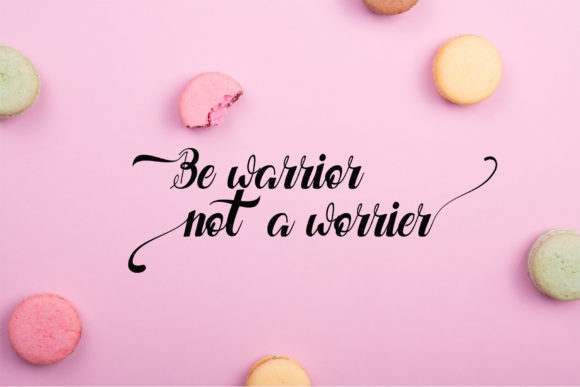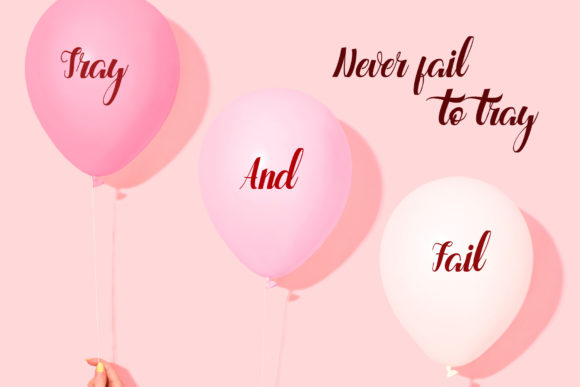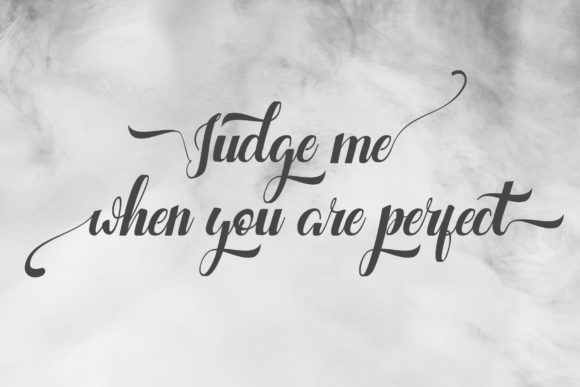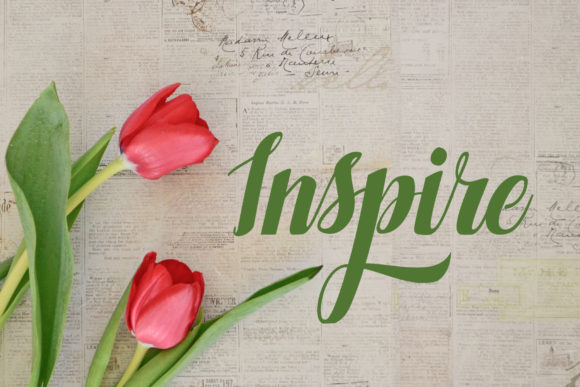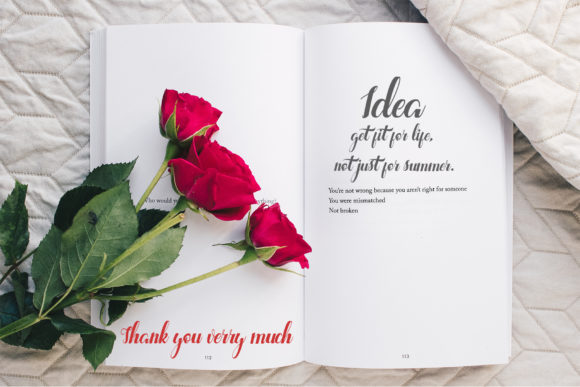
Introducing Artepark Font: Elevate Your Design with Modern Calligraphy
Artepark is a beautiful and unique script, inspired by modern calligraphy. It will add a lovely twist to any design project! If you’re a designer, crafter, or simply someone who appreciates the art of typography, you’ll love the elegance and versatility that Artepark Font brings to the table.
The Inspiration Behind Artepark Font
Artepark Font is a product of modern calligraphy, a style that blends traditional techniques with contemporary flair. The font’s creator drew inspiration from the fluid lines, expressive strokes, and artistic flair of calligraphic writing. The result is a script that exudes sophistication, creativity, and a touch of whimsy.
What Makes Artepark Font Special?
- Unique Character Set: Artepark Font boasts an extensive character set, including uppercase and lowercase letters, numbers, punctuation marks, and special characters. This ensures that you have everything you need to create stunning designs.
- Modern Calligraphic Style: The font’s modern calligraphic style gives it a fresh and trendy feel, perfect for designs that require a touch of elegance and sophistication.
- Highly Legible: Despite its artistic nature, Artepark Font remains highly legible, making it suitable for use in a variety of applications, from headings and titles to body text.
- Multilingual Support: Artepark Font supports multiple languages, allowing you to create designs that cater to diverse audiences.
Uses for Artepark Font
Artepark Font is an incredibly versatile script that can be used in a wide range of design projects, including:
- Branding and Logo Design: Add a touch of sophistication to your brand’s identity with Artepark Font.
- Wedding and Event Stationery: Create beautiful wedding invitations, place cards, and other stationery with Artepark Font.
- Packaging Design: Elevate your product packaging with the elegant and modern style of Artepark Font.
- Digital and Print Media: Use Artepark Font in digital and print media, such as magazines, brochures, and social media graphics.
Tips for Using Artepark Font
To get the most out of Artepark Font, follow these tips:
- Pair with Neutral Fonts: Pair Artepark Font with neutral fonts, such as sans-serif or serif fonts, to create visual interest and balance.
- Experiment with Colors: Play with different colors and textures to add depth and dimension to your designs.
- Use for Headings and Titles: Use Artepark Font for headings and titles to add a touch of elegance and sophistication.
Artepark Font is a stunning script that can elevate any design project with its modern calligraphic style and unique character set. Whether you’re a designer, crafter, or simply someone who appreciates the art of typography, Artepark Font is a must-have in your font collection. With its versatility, legibility, and aesthetic appeal, Artepark Font is sure to become a favorite among designers and crafters alike.